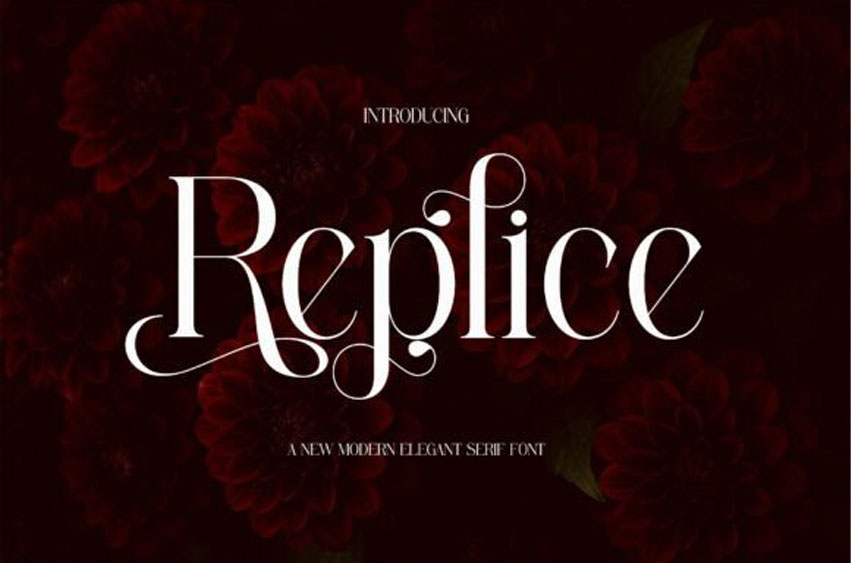
Replice Font is an elegant modern serif font that beautifully combines refined ligatures with timeless sophistication.
Inspired by the delicate charm of fresh blooms and classic design, Replice exudes a feminine and graceful presence—perfect for high-end branding, floral themes, fashion editorials, wedding invitations, and upscale packaging.
With its bold yet soft character, Replice balances the strength of traditional serif styles with a contemporary twist. Every letter is thoughtfully crafted to convey elegance, intention, and style—making your designs feel effortlessly luxurious.